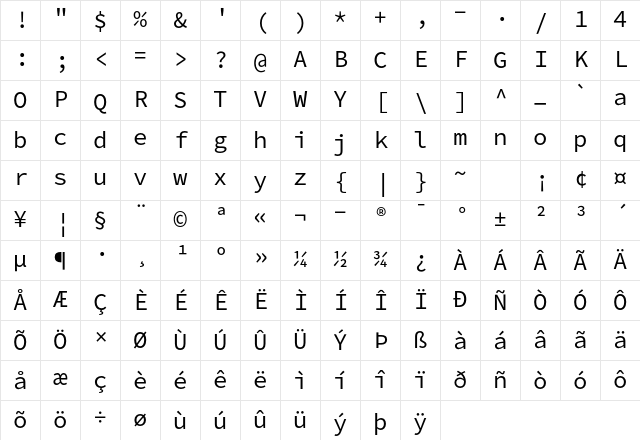
Hasklug NF Regular
Designer: Paul D. Hunt, Teo Tuominen
Design Context for Hasklug NF
Hasklug NF is a composed and adaptable typeface that performs quietly and consistently across a wide range of design contexts.